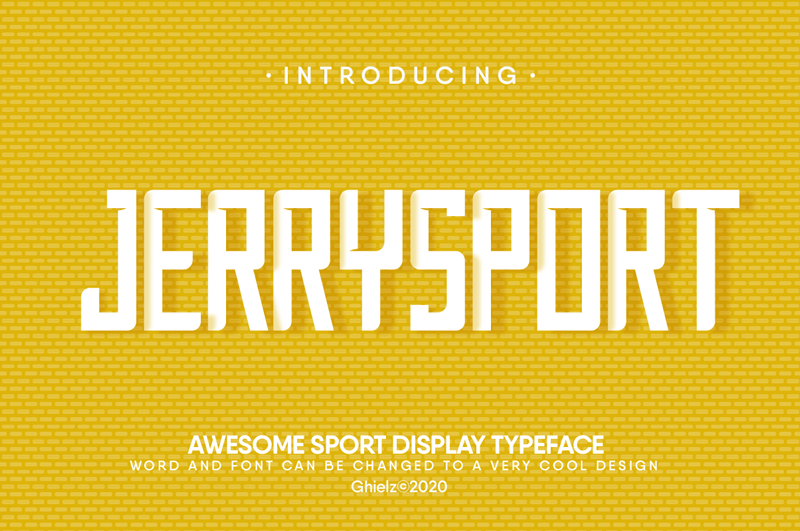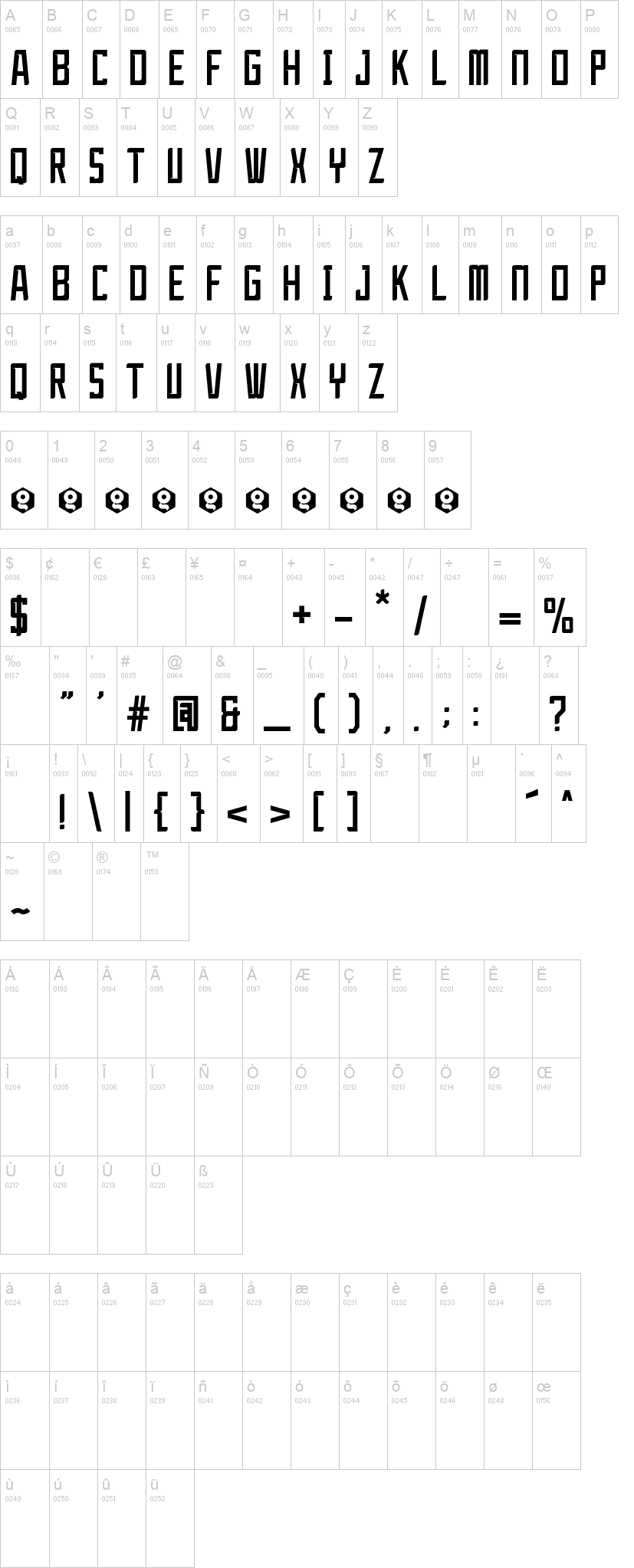
JerrySport-Italic.ttfNote of the authorJerrySport Font is a strong and modern display font. It features an urban style that makes it perfect for posters, flyers, headlines and much more!